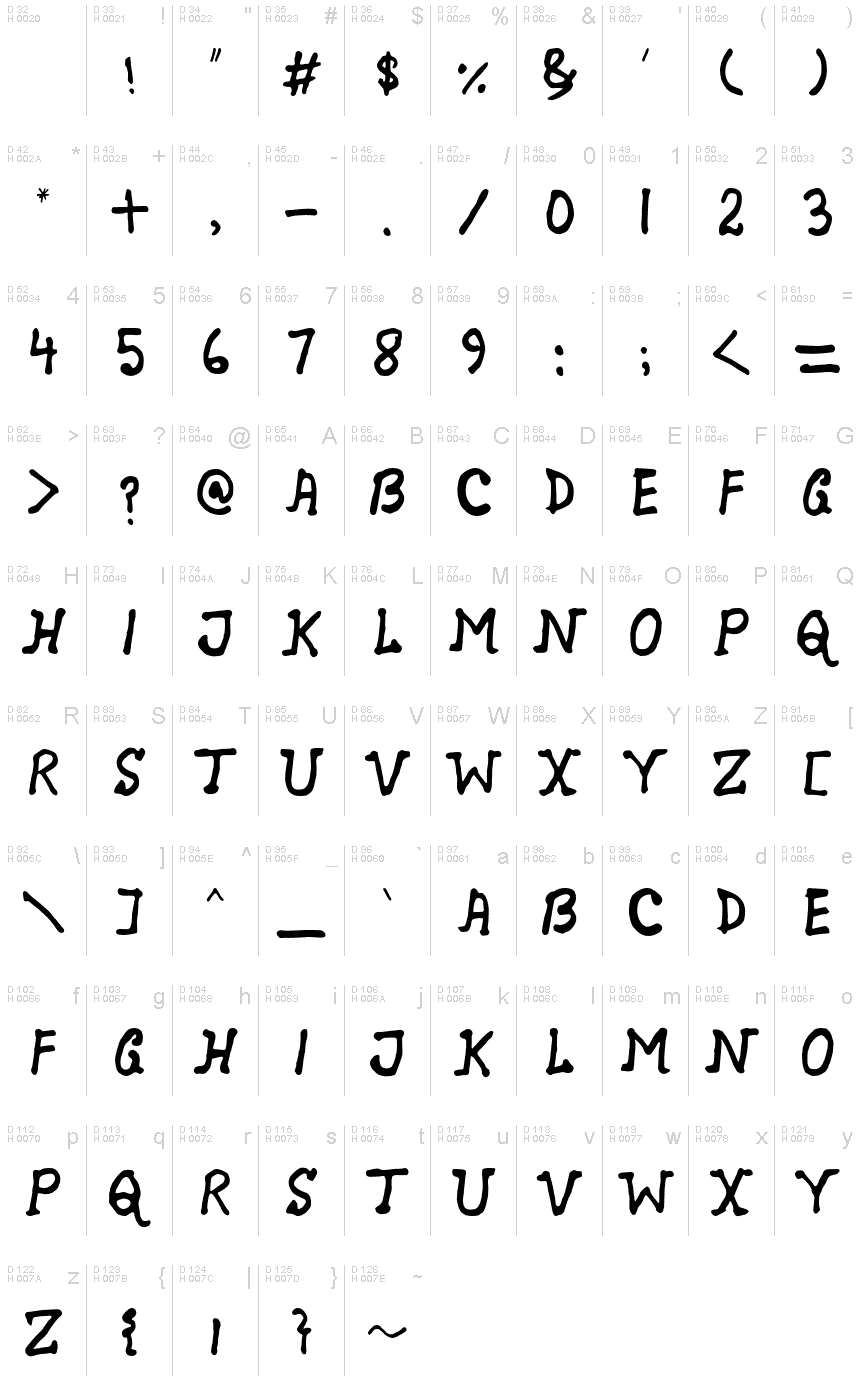
MUKUNDA_COMIC
MUKUNDA COMIC, designed by Mukunda Sarkar, is a playful and dynamic display font that will bring a touch of fun to your projects. With its semi-light weight and comic style, it is perfect for designing children's books, greeting cards, invitations, and posters. The font's unique character shapes offer endless possibilities to create eye-catching headlines and titles. MUKUNDA COMIC's versatility also makes it suitable for branding materials such as logos or packaging design. Let your creativity run wild with this charming typeface that is sure to make any project stand out!